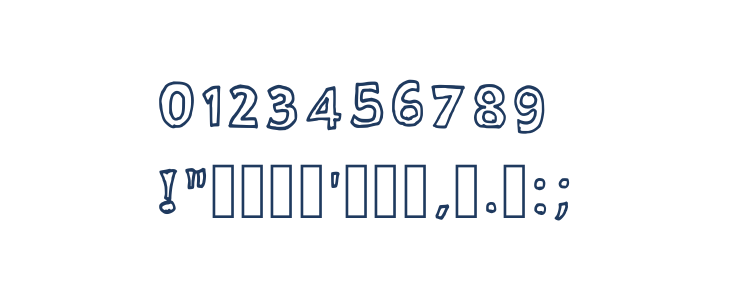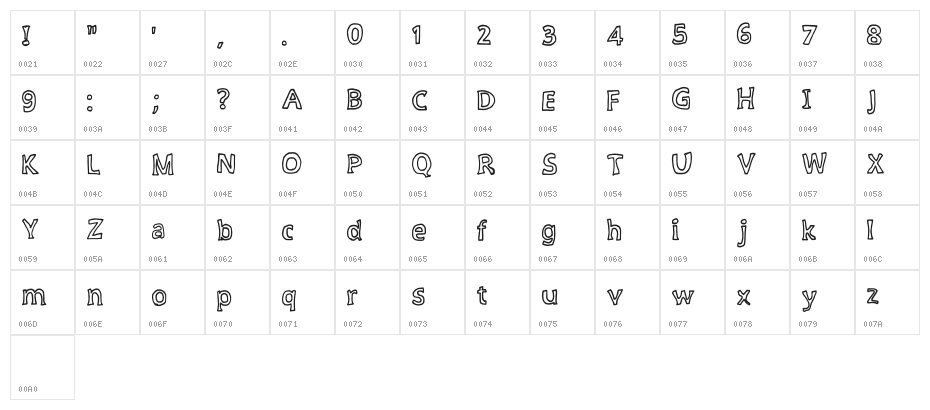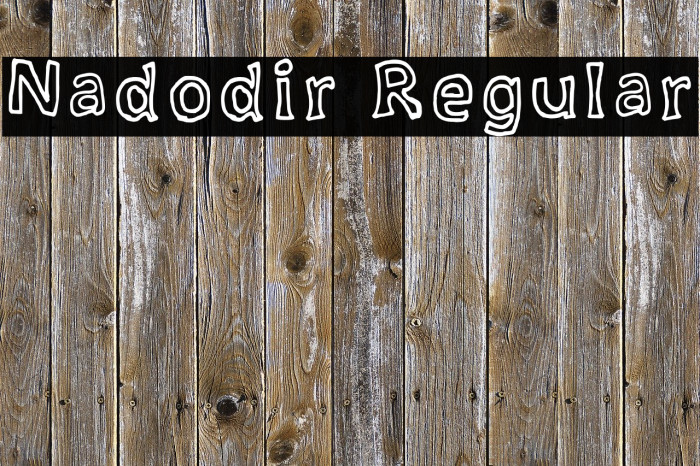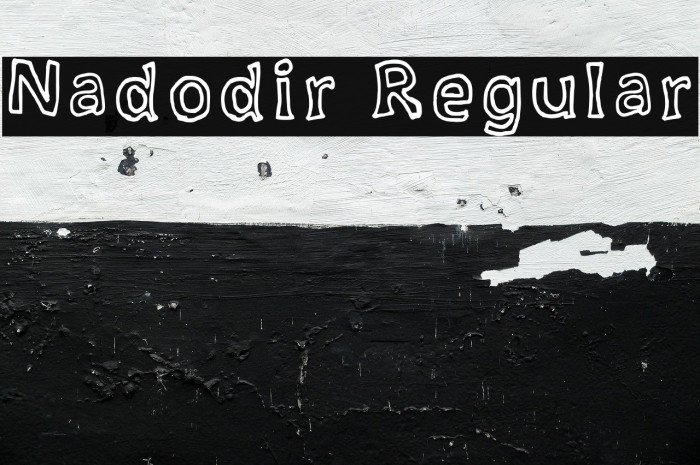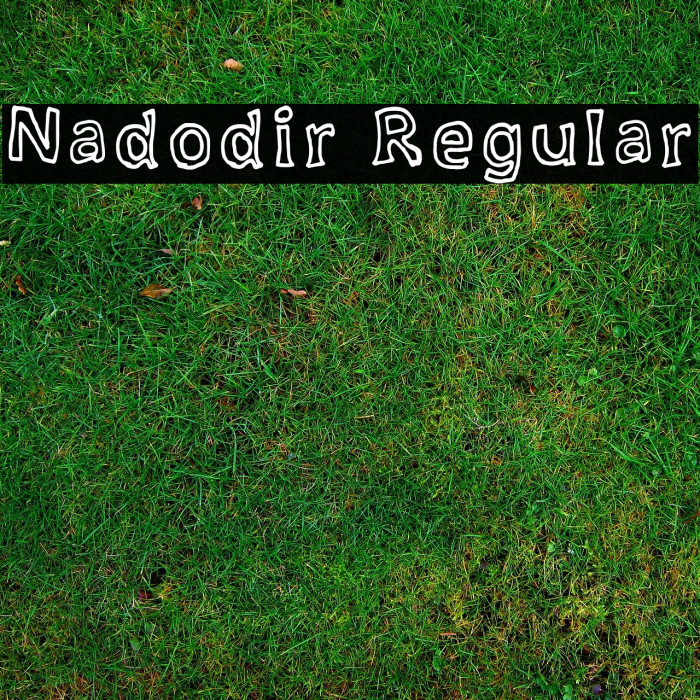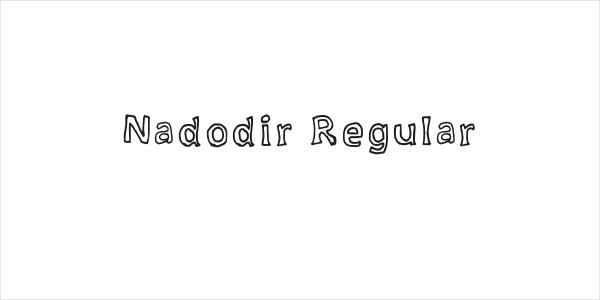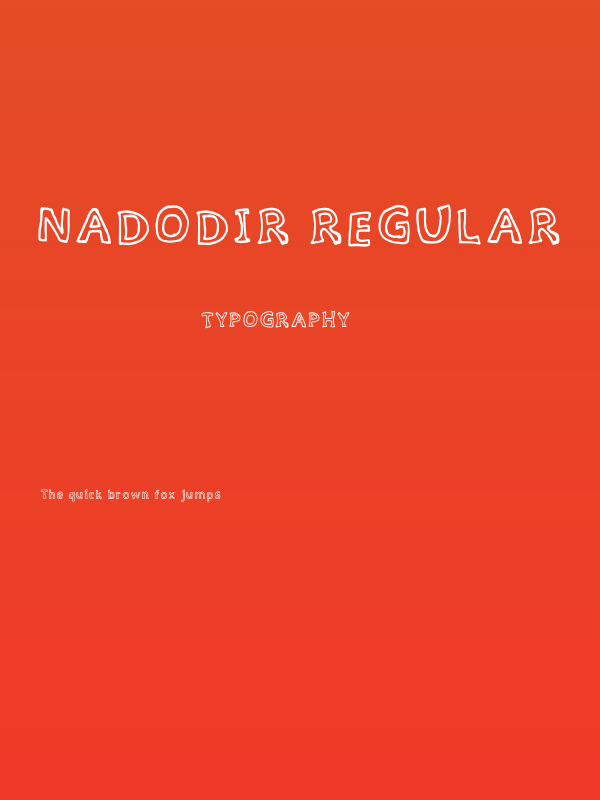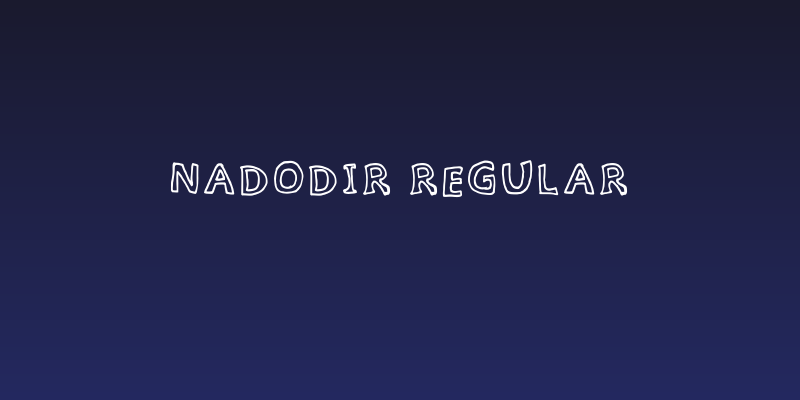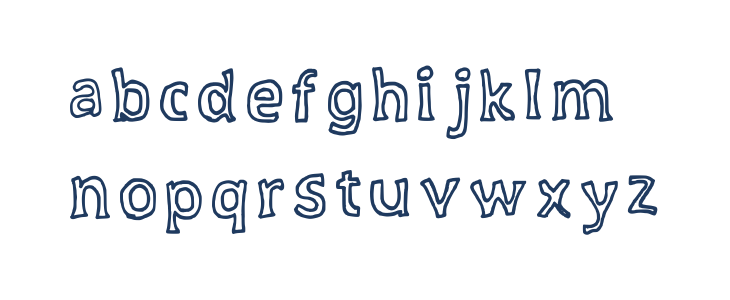
Nadodir Regular Font
| Stile generale | Playful, Whimsical |
| Progetti proposti | Ideal for children's books, playful branding, creative posters, and informal invitations. |